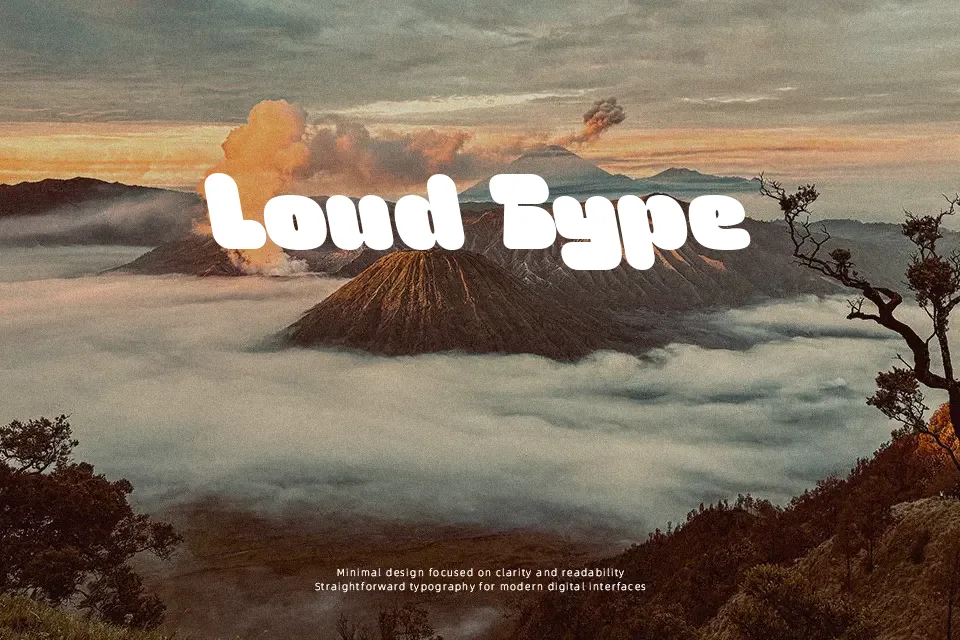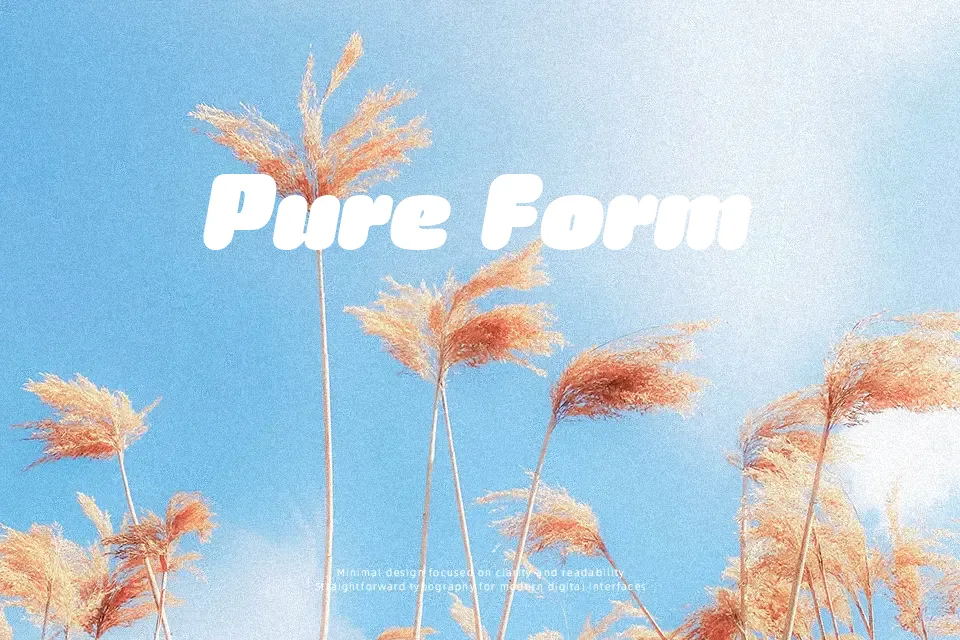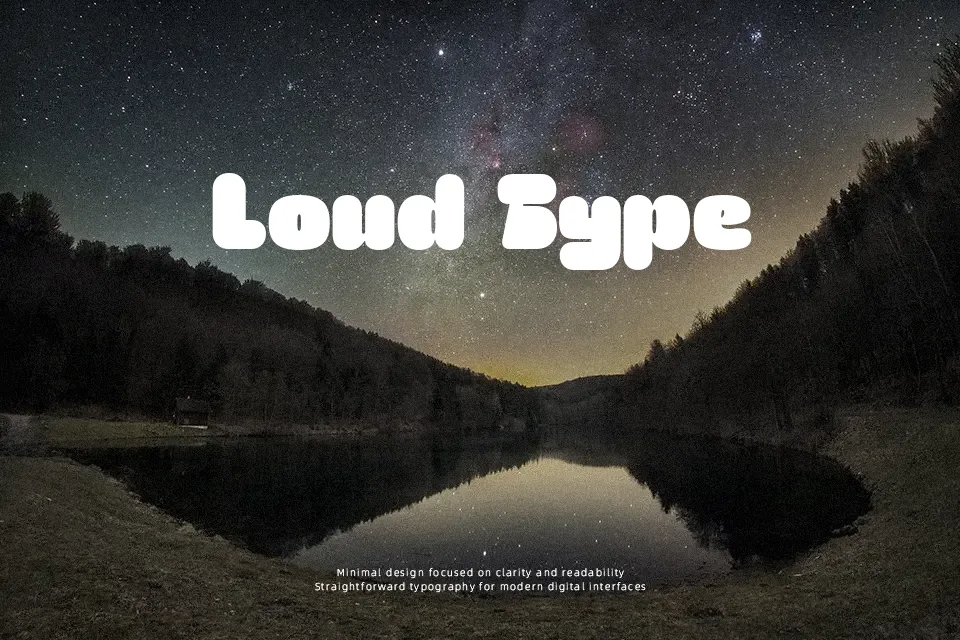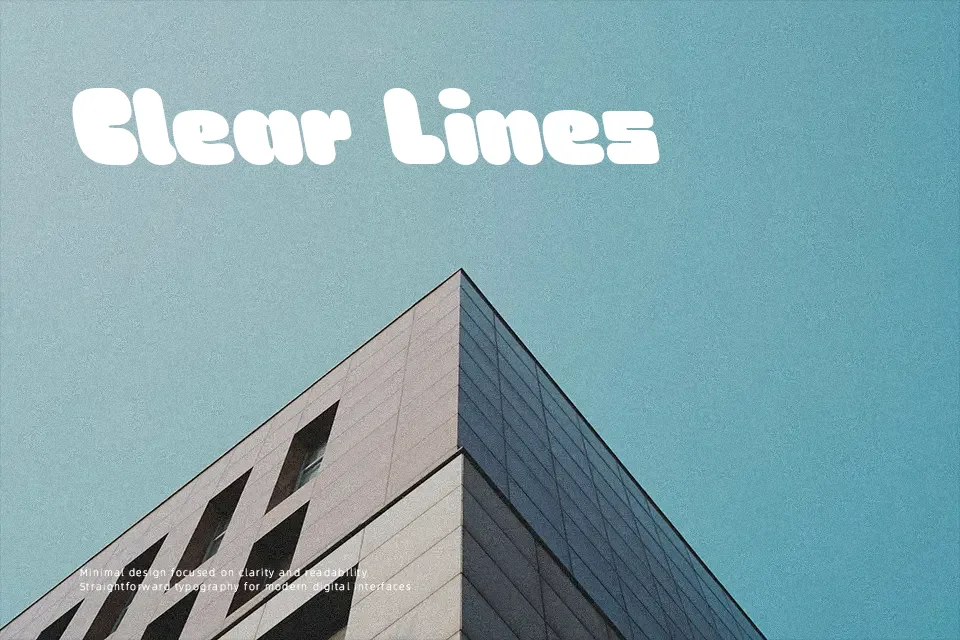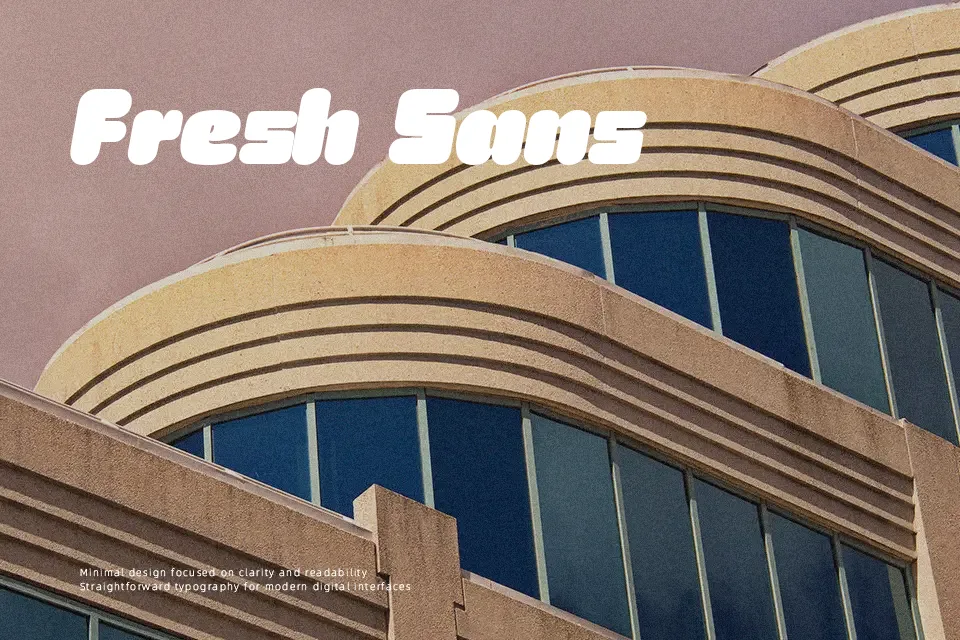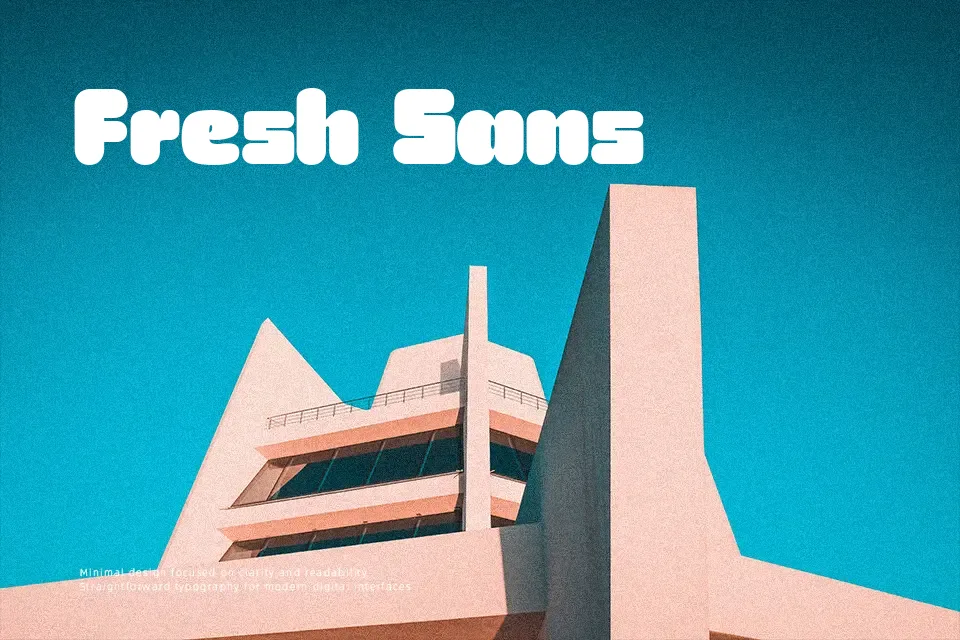
SG Wristan Font
Featuring thick strokes and plump terminals, SG Wristan Font showcases an exaggerated groovy aesthetic with tight letter spacing and low stroke contrast. The lowercase glyphs share generous counters, while uppercase characters maintain a uniform baseline and wide horizontal posture. This typeface excels in prominent brand identity marks, event banners, and casual merchandise graphics where dramatic weight commands attention. The dense anatomy ensures strong impact in short titles, though compact inner counters reduce clarity at smaller point sizes. Consequently, the letterforms are less suited for multi-line body text or dense editorial compositions.
music festival posters,beverage packaging labels,retro apparel graphics,playful logo designs
continuous body text,dense spreadsheet tables,small interface captions,formal legal documents
Perfect for headline, kids, and logo, with a bold and decorative style.